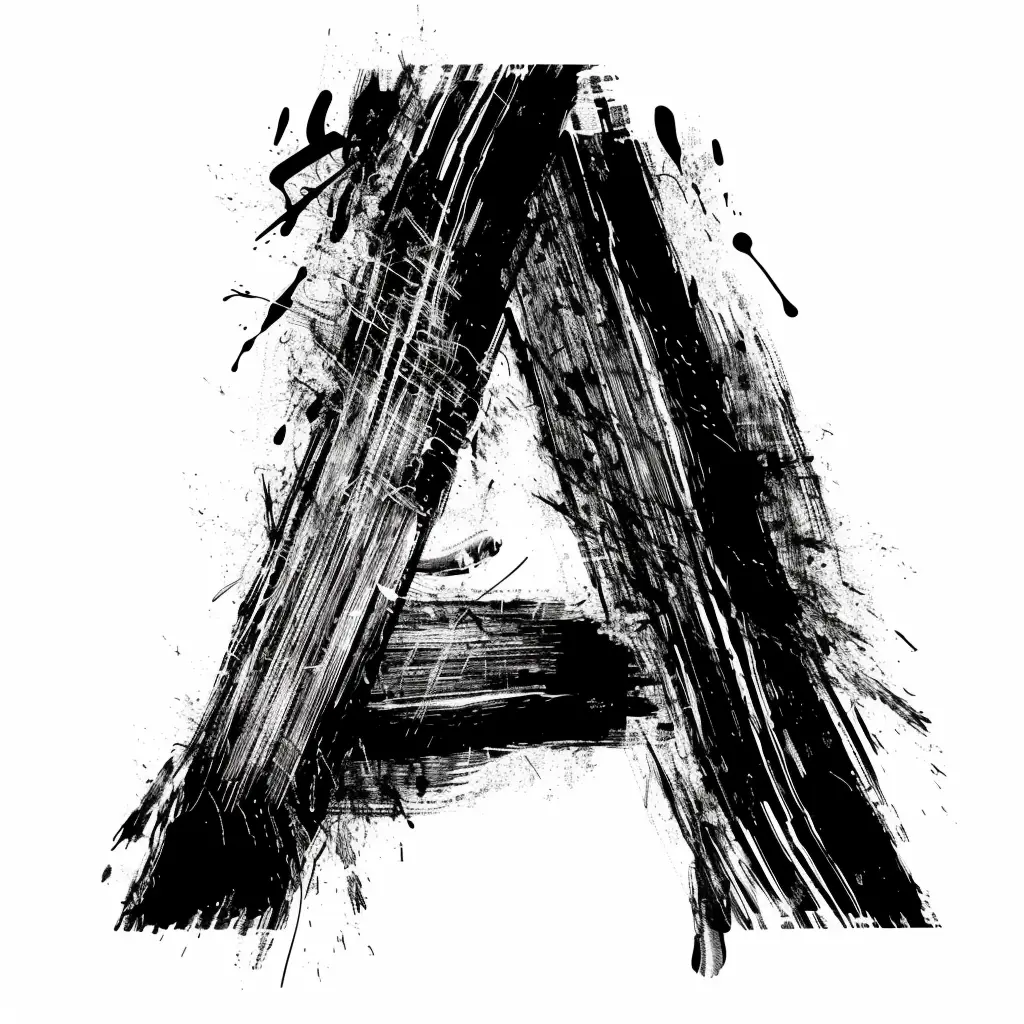
The image features a stylized, abstract letter "A" rendered in bold black brushstrokes against a white background. The design incorporates dynamic splatters, drips, and textured lines, creating a raw, expressive, and artistic aesthetic. The high-contrast monochromatic palette emphasizes the letter’s dramatic, hand-painted appearance.